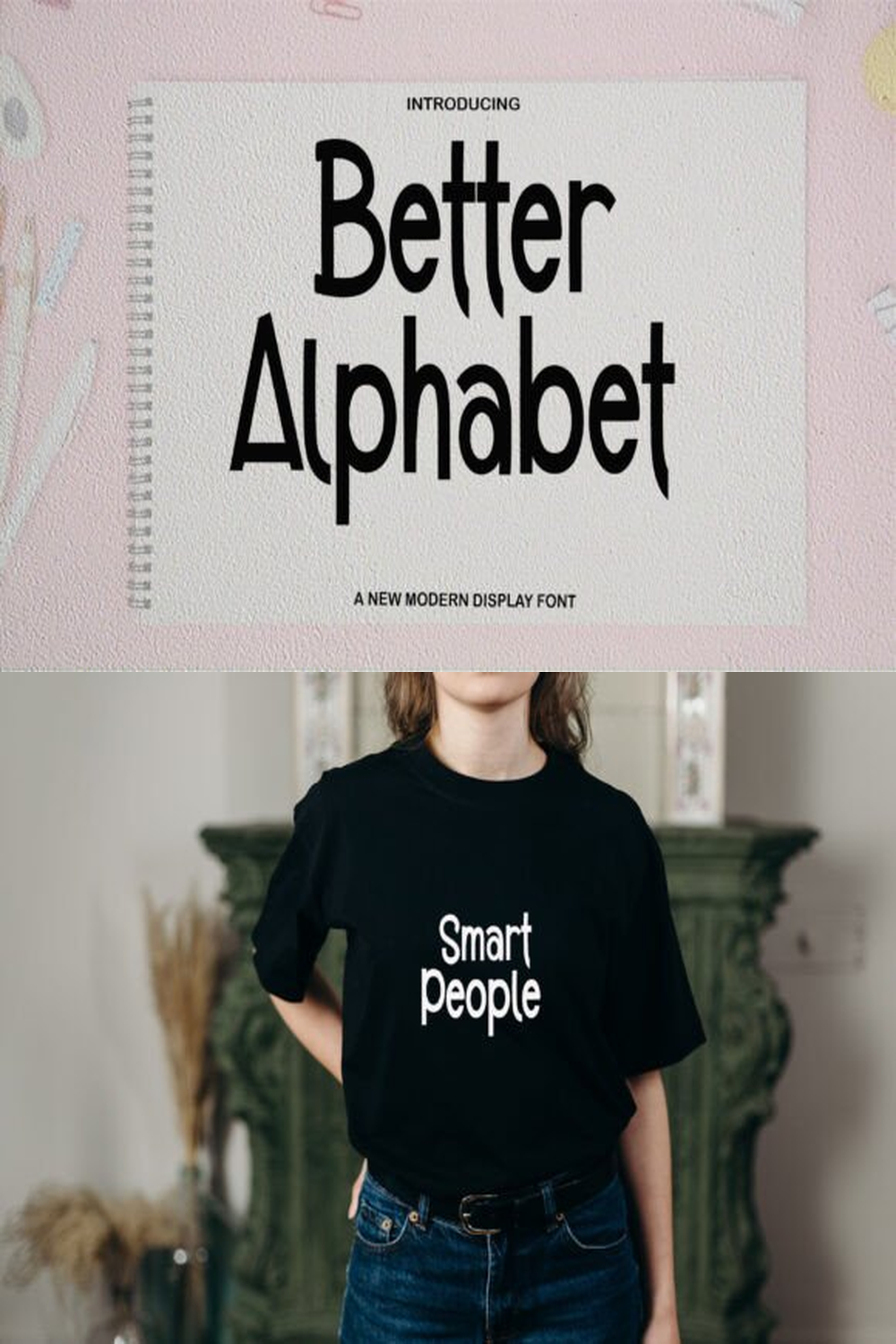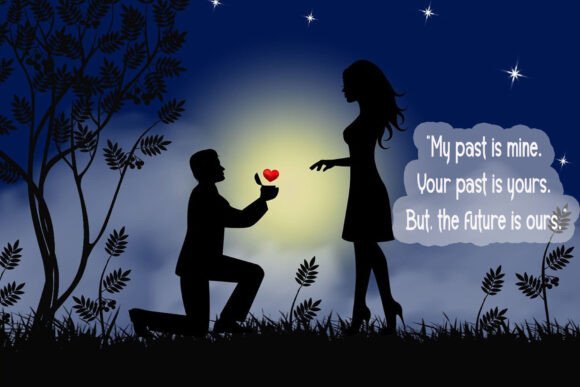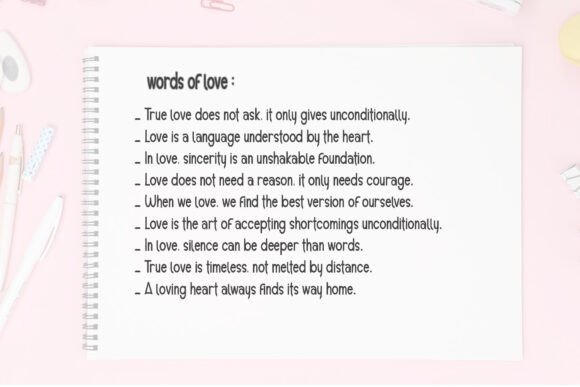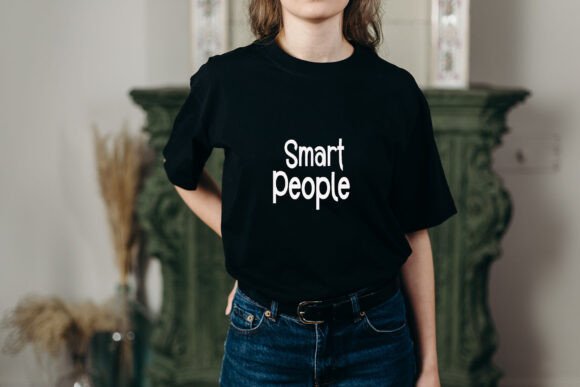
About the Better Alphabet Font
Crafted with precision, the Better Alphabet Font is ready to bring your ideas to life. Better Alphabet is a festive and merry typeface that captures the spirit of the holiday season. With its decorative elements and whimsical flair, it adds a touch of enchantment to your designs. Perfect for greeting cards, gift tags, and holiday-themed projects, this font brings a cheerful and nostalgic ambiance to your words. Let your typography shine with the magic of Beautiful Font!
Better Alphabet Font Usage Examples